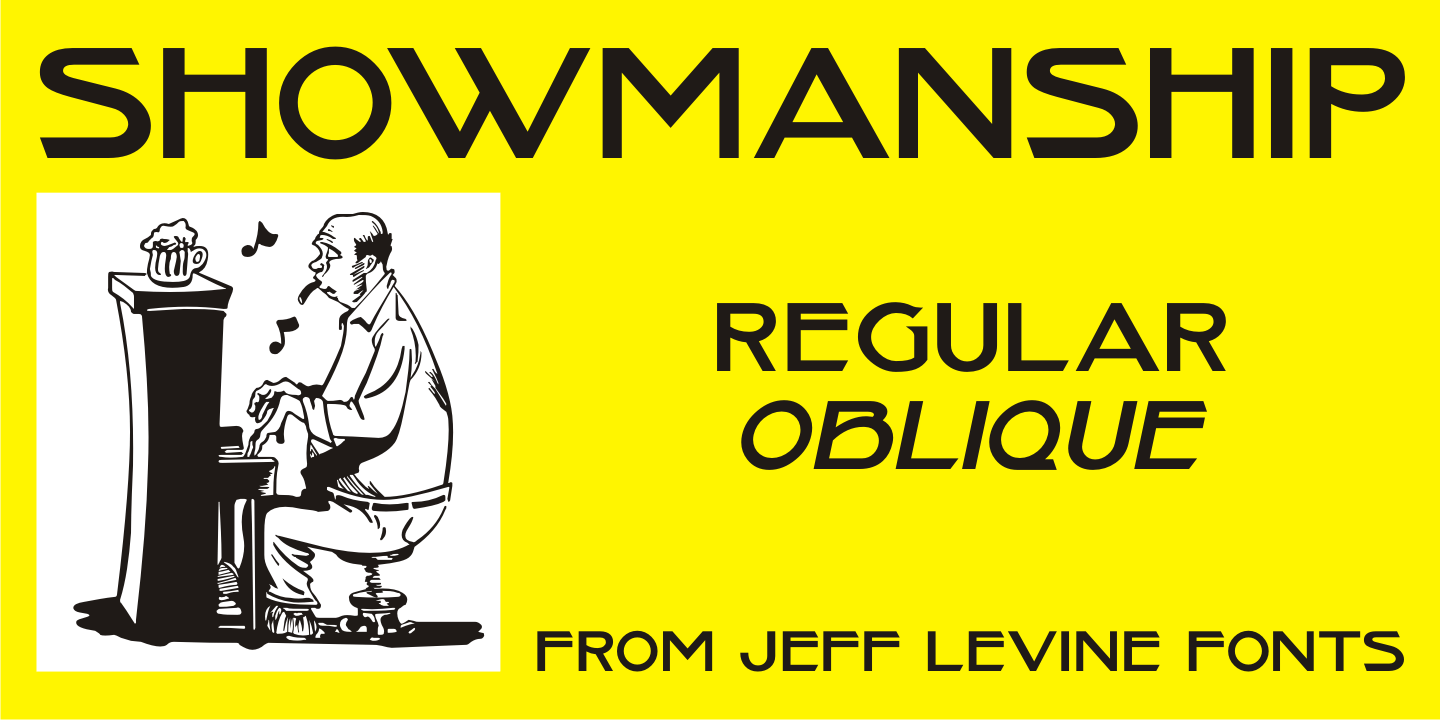
Showmanship
Despite the racially demeaning 1906 sheet music for 'The Ghost of the Banjo Coon', the title's lettering provided an interesting hand-lettered sans serif that has been re-drawn digitally as Showmanship JNL in both regular and oblique versions.